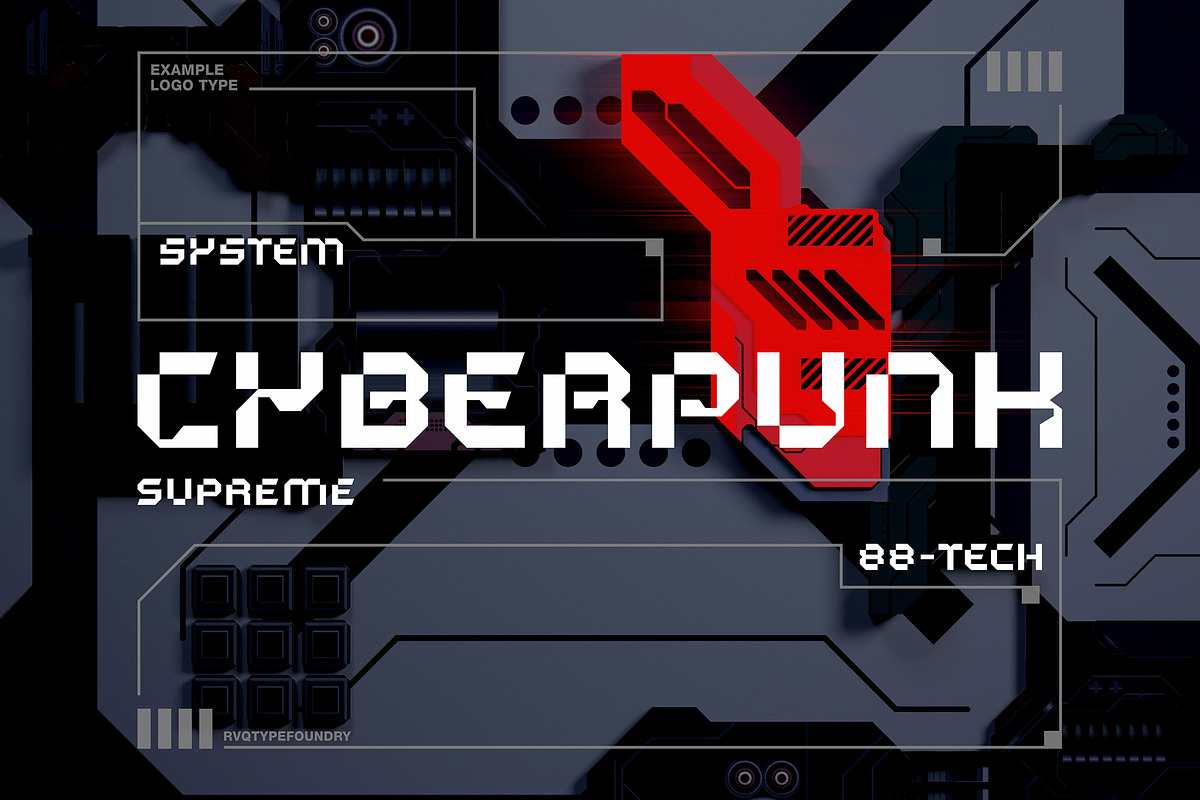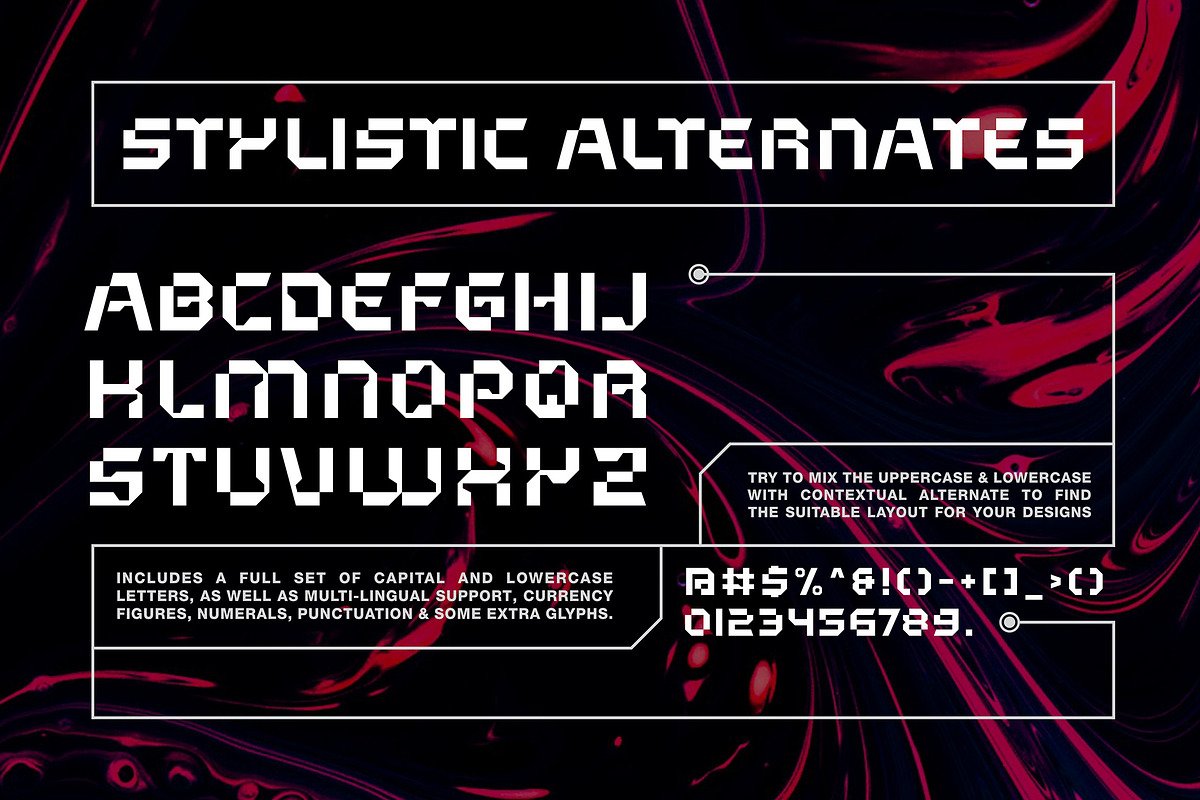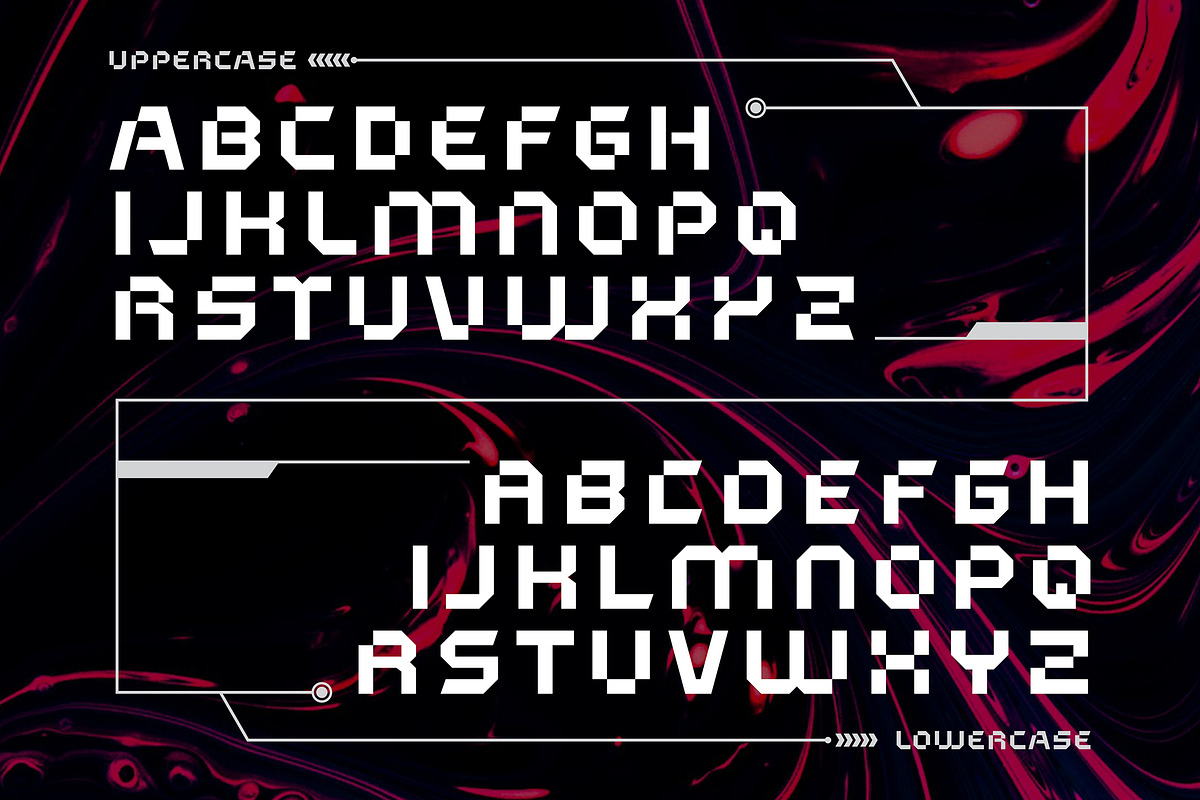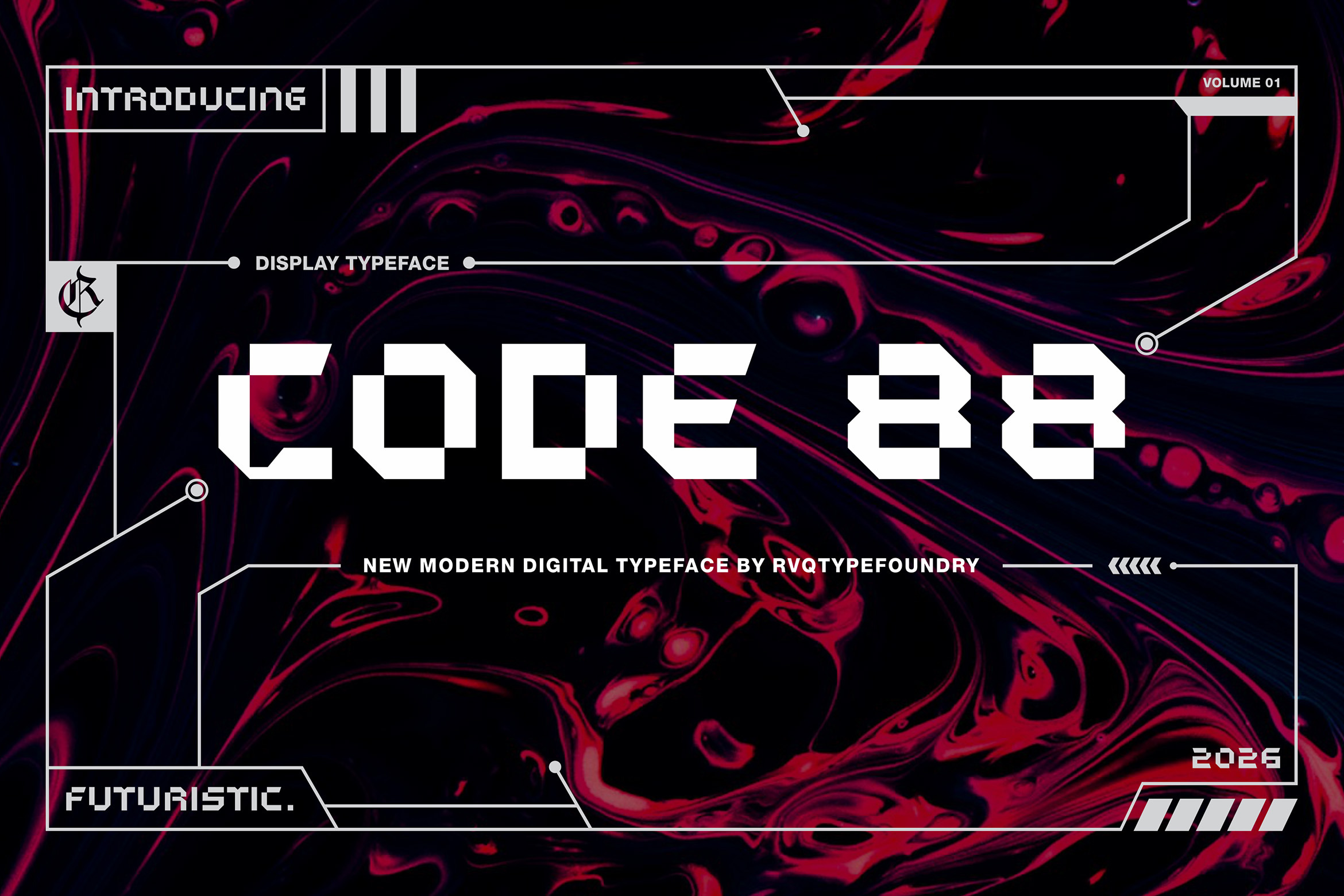
Code 88 futuristic font
Code 88 is the new font display futuristic from Rvq typefoundry ,Code 88 includes a full set of capital and lowercase letters, as well as multi-lingual support, currency figures, numerals, punctuation & some extra glyphs. Code 88 Perfect for : for Branding, gaming, esports, UI/UX, cyberpunk design, and digital innovation projects.